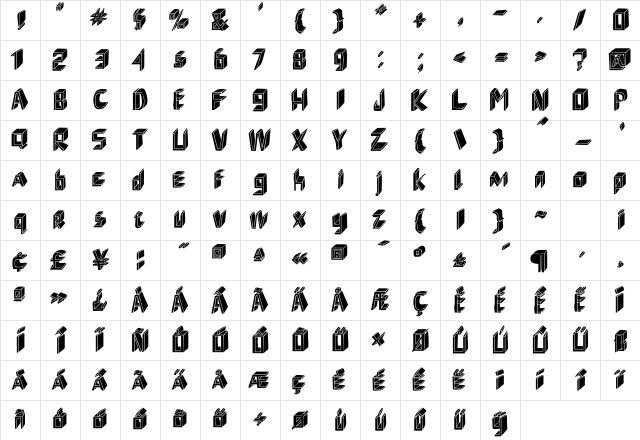
ShoeRepairs Knockout Free Font
ShoeRepairs Knockout
Style: Knockout
Design Context for ShoeRepairs
ShoeRepairs is a composed and adaptable typeface that performs quietly and consistently across a wide range of design contexts.